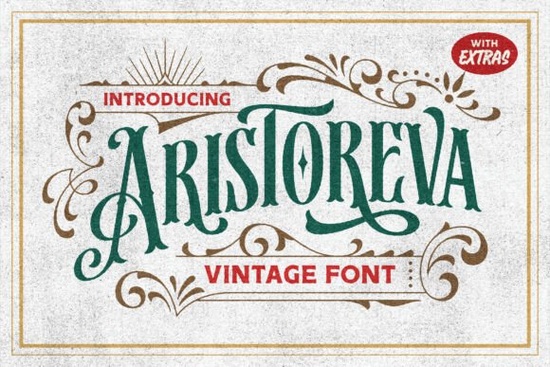
Finding the right vintage display typeface can make or break a design project. The Aristoreva Font is a decorative, condensed typeface inspired by Victorian typography and Art Nouveau styling from the 19th century. It comes loaded with medium-detailed ornaments and additional swashes, making it a strong choice for anyone who wants that old-world, handcrafted feel without spending hours on custom lettering.
This font works especially well at larger sizes think posters, signage, logos, and merchandise. If you sell on print-on-demand platforms or run a small brand, a font like this can quickly become a go-to for seasonal campaigns, branding projects, or product packaging.
What Makes Aristoreva Different from Other Vintage Fonts?
Plenty of fonts claim a vintage look, but Aristoreva stands out because of its condensed letterforms and built-in ornamental details. The designer pulled references from vintage signage, old badges, and classic logo designs, then added swash alternates that give you flexibility without needing extra design software.
Here's what you get with this typeface:
- Condensed uppercase and lowercase characters that work well at display sizes
- Ornamental swashes for flourishes on headlines and initials
- Bonus ornament set for borders, dividers, and decorative accents
- Victorian and Art Nouveau styling that feels authentic, not generic
The condensed style means you can fit more text into tight layouts a practical advantage for label designs, book covers, and signboard mockups where space matters.
What Can You Use This Font For?
Aristoreva is versatile enough for a wide range of creative projects. Here are some ideas that work particularly well:
- Poster and flyer design The condensed, ornamental style grabs attention at large sizes.
- Logo and branding Ideal for craft breweries, barbershops, vintage shops, and boutique brands that want a classic aesthetic.
- T-shirt and merchandise design Print-on-demand sellers can use it for typography-driven apparel designs.
- Book covers and packaging Works beautifully for historical fiction, specialty food labels, and artisan product packaging.
- Signage and wall art Great for shopfront lettering, menu boards, and printable wall decor.
- Wedding and event stationery The elegant Victorian character set adds a refined touch to invitations and programs.
Does Aristoreva Pair Well with Other Fonts?
Yes, and this is where the font really shines in practice. Because it's a detailed display typeface, pairing it with a clean sans-serif or a simple serif creates a nice contrast. You want the decorative font to do the heavy lifting on headlines while a simpler companion handles body text.
A few pairings worth trying:
- Aristoreva + a clean geometric sans-serif for modern-vintage contrast
- Aristoreva + a simple handwritten style for a casual, artisan feel
- Aristoreva + a light serif for formal or editorial layouts
Who Is This Font Best Suited For?
Aristoreva appeals to a specific kind of creative someone who values classic, ornamental typography and wants their designs to feel grounded in design history rather than following current trends.
It's a strong fit for:
- Print-on-demand sellers building a vintage product line
- Small business owners creating logos, menus, or packaging
- Graphic designers working on editorial or poster projects
- Crafters and hobbyists making printable art, cards, or party decorations
- Content creators designing thumbnails, social media graphics, or YouTube branding
Compared to other options in the same category like the bolder Orange Crayon Aristoreva takes a more refined, historically rooted approach. It doesn't try to be loud; instead, it delivers understated elegance with real ornamental depth.
How to Get the Most Out of This Font
A few practical tips for working with Aristoreva:
- Use it at larger sizes. The condensed letterforms and ornamental details look best above 24pt. At small sizes, the details can get lost.
- Experiment with the swashes. Try adding swash alternates to the first and last letters of a word for a polished, custom look.
- Use the bonus ornaments as design elements. The included decorative pieces work as borders, corner accents, or dividers between text blocks.
- Pair it with plenty of white space. A detailed display font like this needs breathing room to look its best.
- ☑️ Choose a clean, simple companion font for body copy and supporting text
- ☑️ Test your design at print resolution before finalizing for production